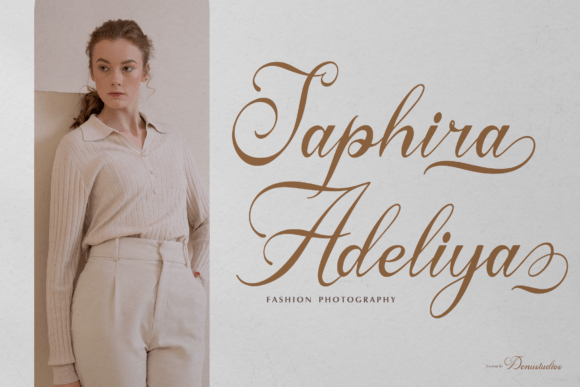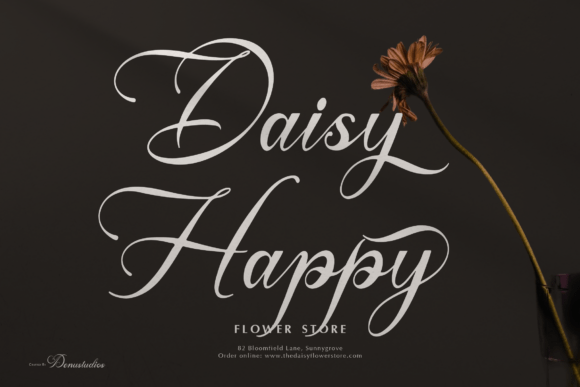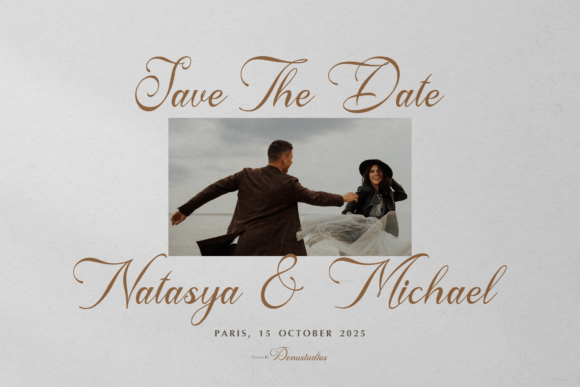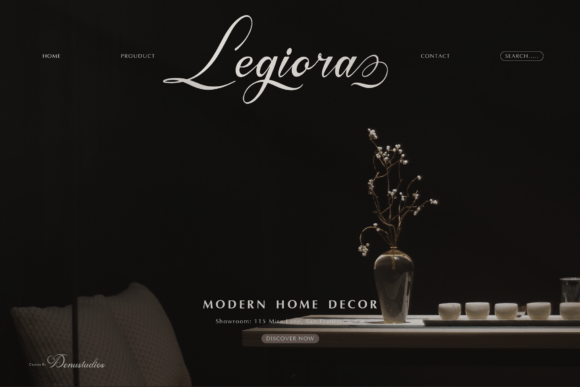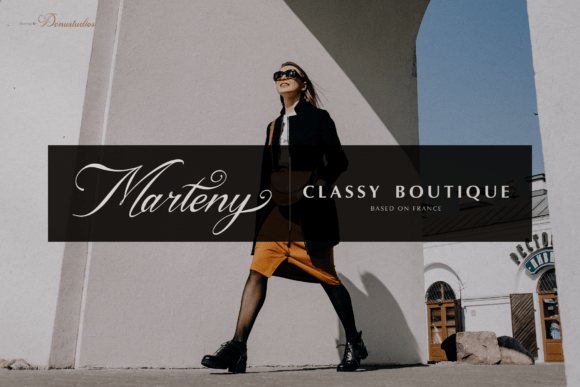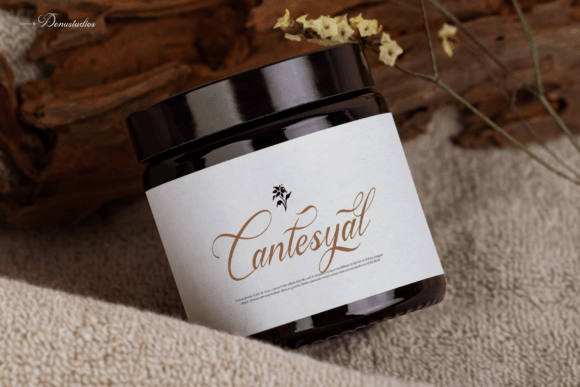
The Elegance of Anelyas Font: A Designer’s Dream Come True
I’ll never forget the time I was working on a wedding invitation project, and my client asked me to create a design that exuded luxury and romance. I scoured the internet for the perfect font, but nothing seemed quite right – until I stumbled upon Anelyas. This stunning calligraphy font has been a game-changer for my designs, and I’m excited to share its beauty with you.
A Personal Review of Anelyas Font
• ✨ Elegant and refined design that’s perfect for upscale branding and wedding invitations
• ✅ Over 340 glyphs, alternates, and ligatures for endless creative possibilities
• 💫 Flowing swashes and graceful curves that add a touch of sophistication to any design
• 🎨 Versatile and adaptable, making it suitable for various design projects, from packaging to editorial design
While Anelyas is an exceptional font, there are a few things to keep in mind:
• ⚠️ Some users may find the font overwhelming due to its extensive features and glyphs
• 🤔 It may not be the best choice for body text or long-form content, as it’s primarily designed for display purposes
The Story Behind Anelyas Font
Anelyas was designed with the intention of creating a luxurious, modern calligraphy font that would bring elegance and romance to every letter. Inspired by traditional calligraphy and refined typography, Anelyas’ creator aimed to craft a font that would be both timeless and sophisticated.
Q: What makes Anelyas font so special?
A: Anelyas font stands out due to its elegant design, extensive features, and versatility. With over 340 glyphs, alternates, and ligatures, it offers endless creative possibilities for designers.
Q: Is Anelyas difficult to use for beginners?
A: While Anelyas has many advanced features, it’s relatively easy to use, even for beginners. With some practice and exploration of its OpenType features, you’ll be able to create stunning designs.